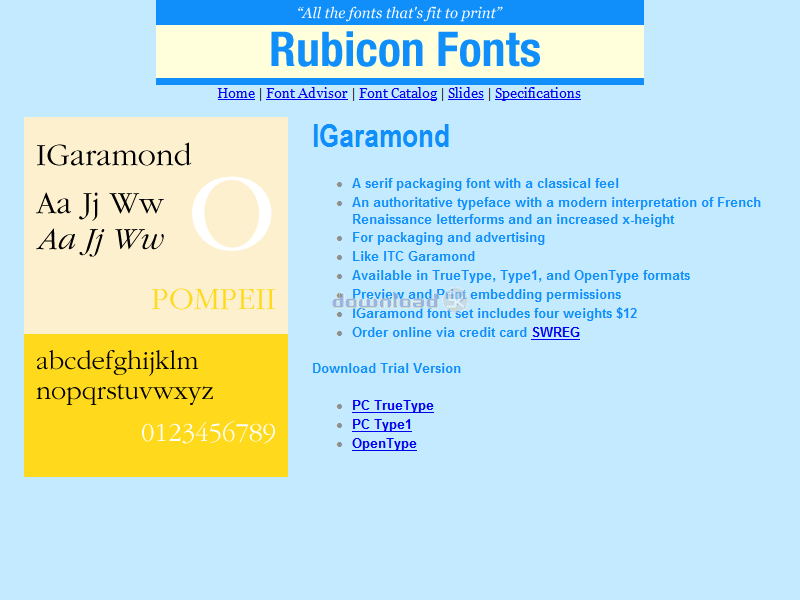
IGaramond Font TT 2.00
"Serif packaging font, authoritative look"
A serif packaging font with an classical feel. Like ITC Garamond. An authoritative typeface with a modern interpretation of Italian Renaissance letterforms. Its large x-height makes it great for advertising, packaging, and newsletters. Recommended size 9 point or less. Accurate and hinted, matching font metrics, standard character set, kerning pairs. Professional print quality for inkjet, laser, typesetter to 3500 dpi. Purchasers receive 4 font variants as follows: Roman, Italic, Bold, Bold Italic.Requirements: No special requirements.